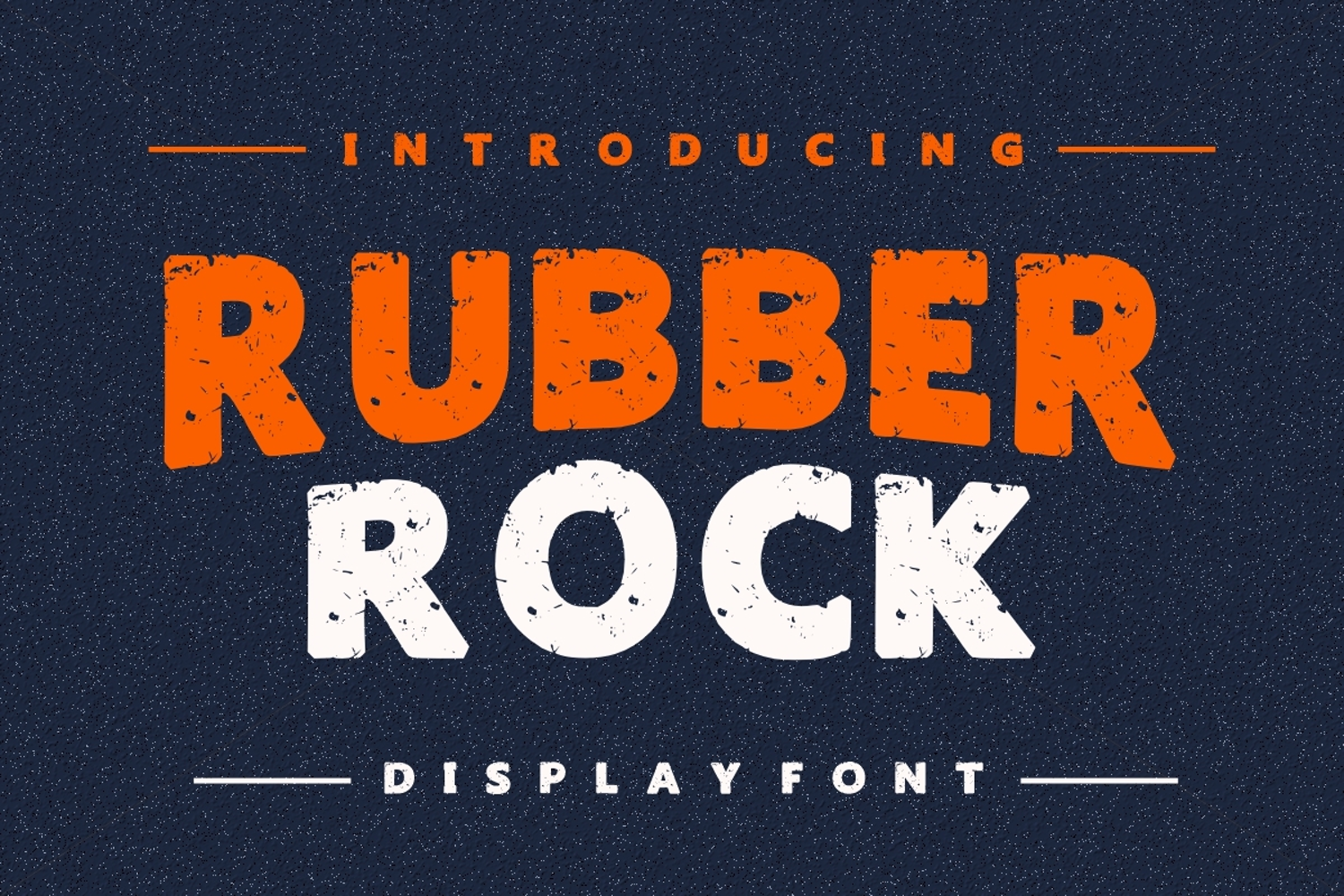
Rubber Rock
Rubber Rock is a Uppercase Vintage, Retro, dirty, grunge bold display font perfect for various projects such as blog posts, logos, branding, ads, invitations, greeting cards, planners, photo albums, decorations, and more.